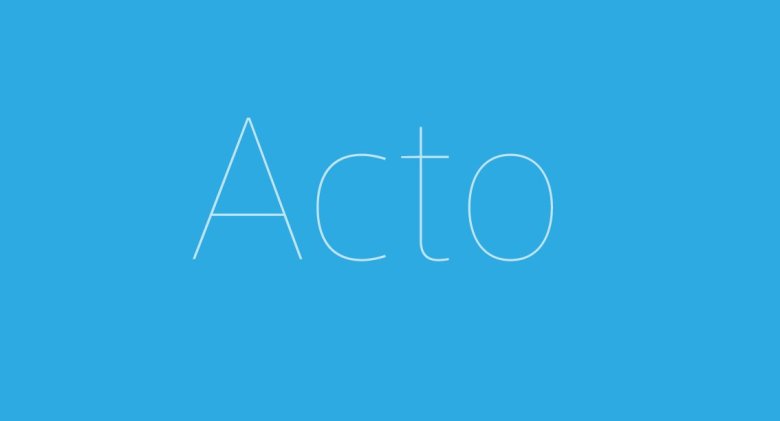
Acto Font Family
Acto Font is a high quality sans serif font that is designed by Hussam Marzouk and is available for free download and personal use. The free version provides all uppercase and lowercase letters and a few special characters too.